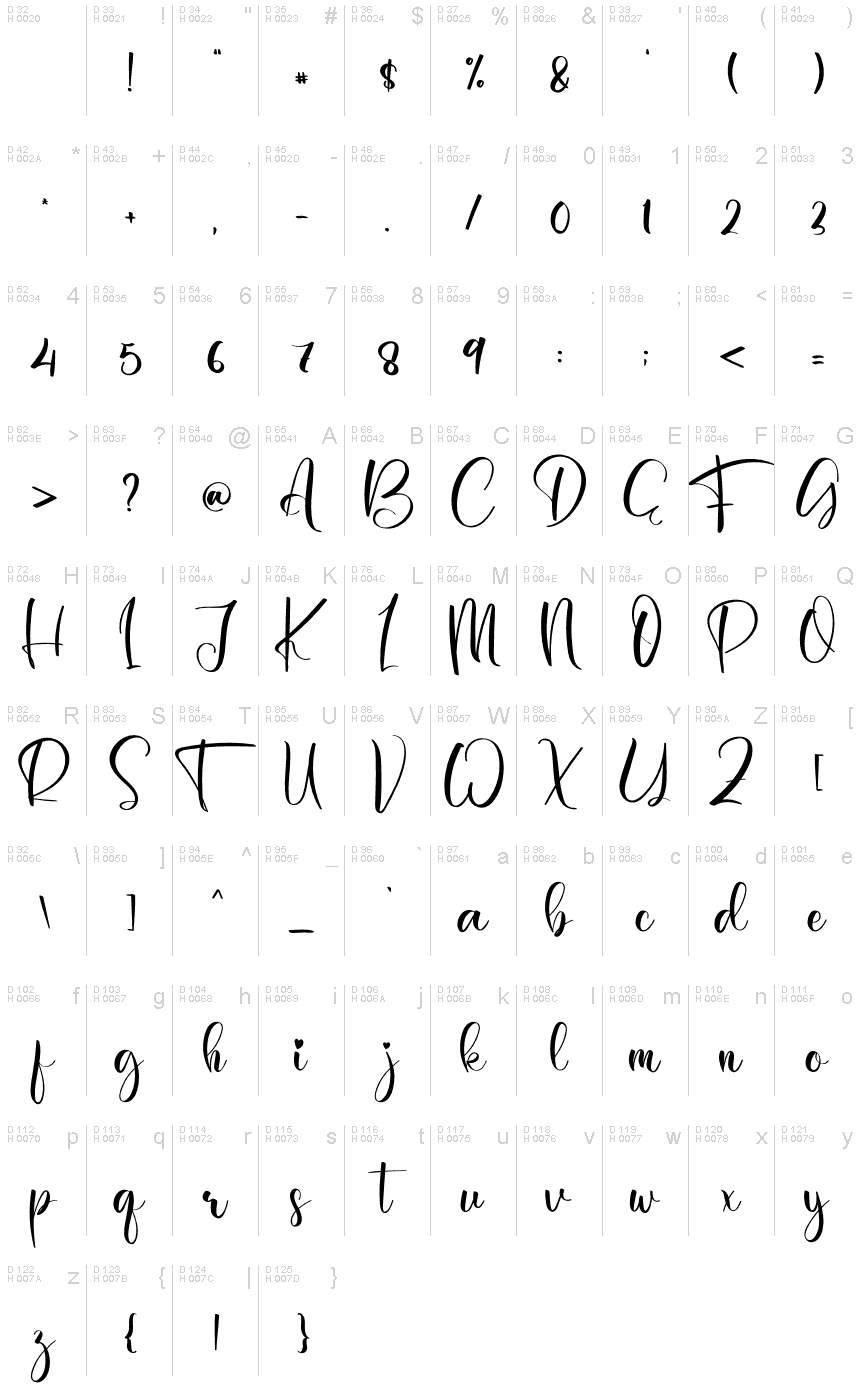
Lovely Fall
Lovely Fall, designed by FreshtypeINK, is a stunning calligraphic font that exudes elegance and sophistication. Its light weight adds an airy touch to any project while maintaining its legibility. Ideal for wedding invitations, greeting cards, and stationary, this font is perfect for any project that requires a touch of refinement. The delicate curves and graceful strokes of Lovely Fall's script style evoke the beauty of autumn leaves gently falling from trees. Whether you're designing an elegant menu or creating beautiful typography for your blog, Lovely Fall will add a touch of class to your work.